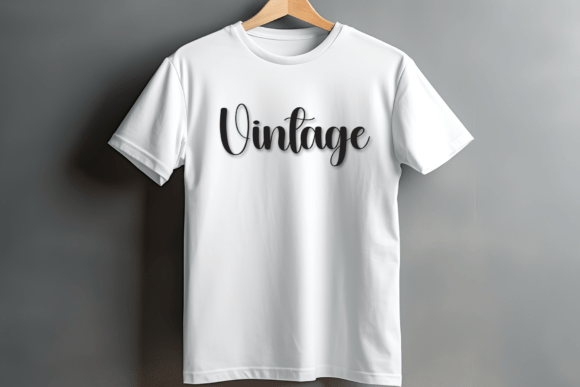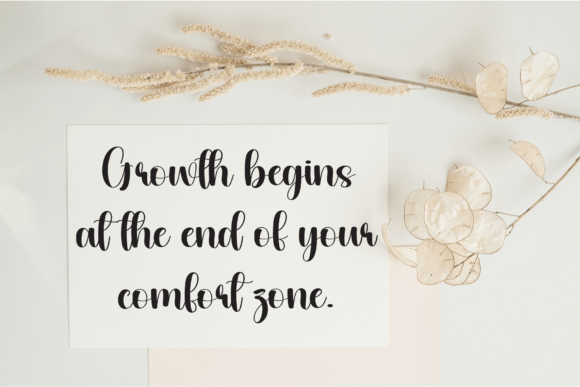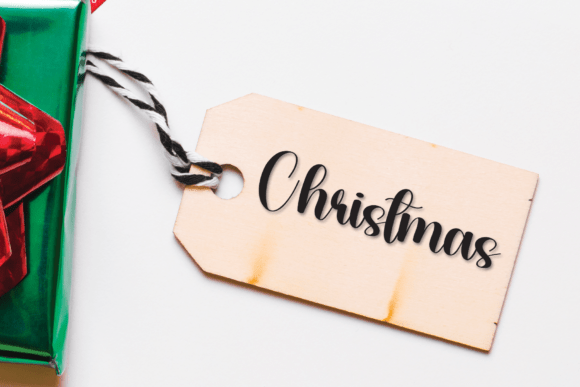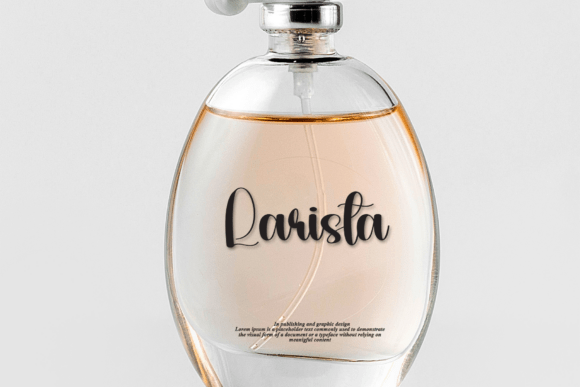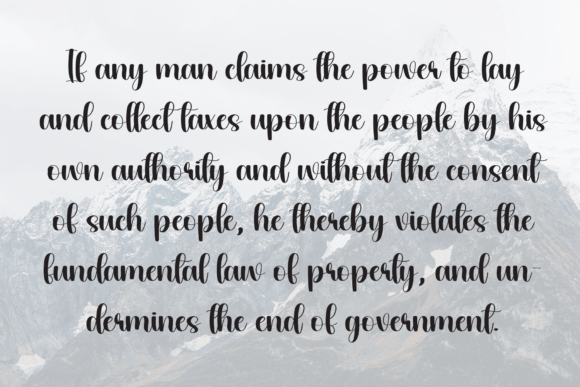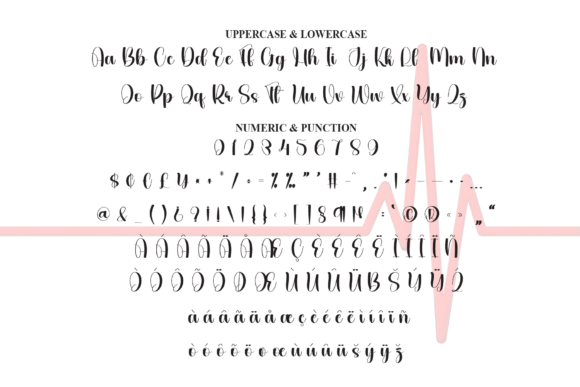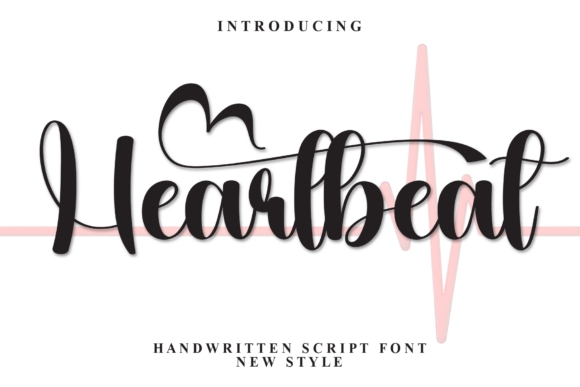
Heartbeat Font: Elevate Your Design with Artistic Flair and Contemporary Elegance
In the world of typography, few fonts manage to capture the essence of hand-painted calligraphy while exuding a sense of modern sophistication. Heartbeat Font is one such exceptional typeface that brings together fluid brush strokes, dynamic curves, and expressive letterforms to create a stylish script font like no other. Whether you’re a designer looking to elevate your branding, a crafter seeking to add a personal touch to your projects, or simply someone who appreciates beautiful typography, Heartbeat Font is sure to leave a lasting impression.
The Artistry of Heartbeat Font
Heartbeat Font is more than just a collection of letters; it’s an artistic statement. Its fluid brush strokes give each character a sense of movement and energy, as if the words themselves are dancing across the page. The dynamic curves and expressive letterforms add a level of sophistication and elegance, making it perfect for projects that demand a touch of class. From the flowing connections between letters to the subtle variations in line width, every detail of Heartbeat Font has been carefully crafted to evoke the feel of hand-painted calligraphy.
Modern Twist on a Classic Theme
While Heartbeat Font draws inspiration from traditional calligraphy, it also boasts a distinctly modern edge. The clean lines, balanced proportions, and highly legible letterforms ensure that it remains versatile and functional, even in digital formats. This blend of old and new makes Heartbeat Font an excellent choice for designers who want to add a creative and sophisticated touch to their work without sacrificing clarity or impact.
Endless Applications for Heartbeat Font
One of the standout features of Heartbeat Font is its incredible versatility. Its unique blend of artistic flair and contemporary elegance makes it suitable for a wide range of applications, including:
- Logos: Create a memorable brand identity with a custom logo that showcases your business’s personality and style.
- Invitations: Add a touch of elegance to your wedding invitations, party invites, or any other special occasion.
- Packaging: Elevate your product packaging with a font that exudes sophistication and creativity.
- Social Media Graphics: Make your social media posts stand out with eye-catching graphics that feature Heartbeat Font.
Bringing Visual Impact and Versatility to Your Designs
Heartbeat Font delivers both visual impact and versatility, making it an invaluable addition to any designer’s toolkit. Its natural flow and vibrant character ensure that it can be used in a variety of contexts, from large-scale advertising campaigns to small-scale craft projects. Whether you’re looking to create a bold statement or add a subtle touch of elegance, Heartbeat Font is up to the task.
Tips for Getting the Most Out of Heartbeat Font
To truly make the most of Heartbeat Font, consider the following tips:
- Experiment with Colors: Heartbeat Font looks stunning in a variety of colors, so don’t be afraid to experiment and find the perfect hue for your design.
- Play with Ligatures: Take advantage of Heartbeat Font’s ligatures to create a more natural, flowing look.
- Mix and Match: Combine Heartbeat Font with other fonts to create a unique and visually interesting design.
Heartbeat Font is a stylish script font that offers a perfect blend of artistic flair and contemporary elegance. With its fluid brush strokes, dynamic curves, and expressive letterforms, it’s an excellent choice for designers and crafters looking to add a creative and sophisticated touch to their work. Whether you’re creating logos, invitations, packaging, or social media graphics, Heartbeat Font is sure to deliver both visual impact and versatility. So why wait? Discover the endless possibilities of Heartbeat Font and take your designs to the next level.